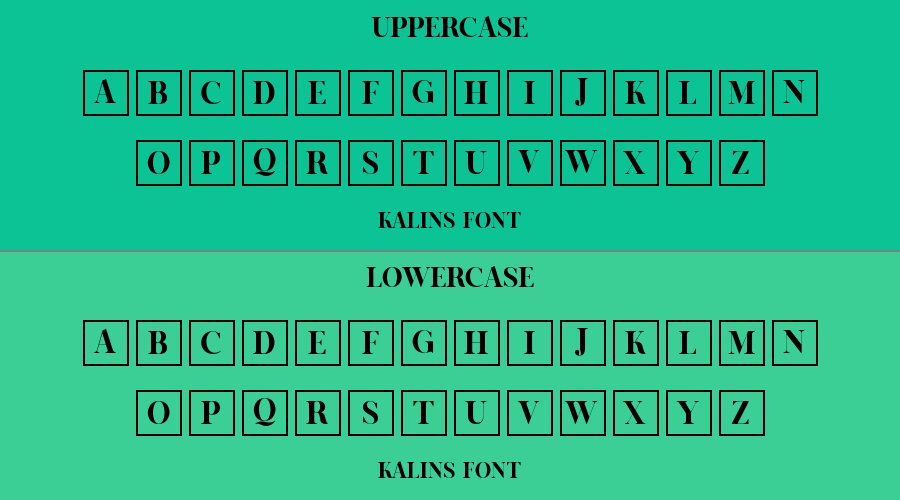
About Kalins Font
Kalins Font represents a sophisticated approach to type design, balancing bracketed serifs with functional clarity. Perfect for annual reports, this font family showcases impressive clarity and creative impact throughout its character set. Designers appreciate its versatility and reliability.
Designers will appreciate nuanced touches including subtle details and stylistic alternates, adding sophistication to any project. These features become apparent in digital banners, where headline impact matters most. The careful treatment of joint detail and regulatory compliance ensures optimal performance.